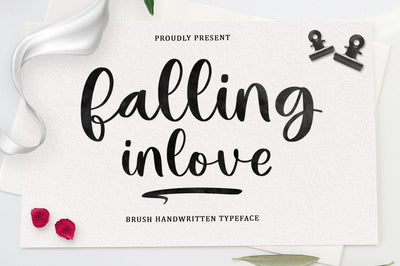
Falling Inlove Script
Falling Inlove Script are beautiful and romantic handwritting fonts. Looks amazing on wedding invitations, thank you cards, quotes, greeting cards, logos, business cards and any other design.
The font includes OpenType features with ligatures, and multiple language support.